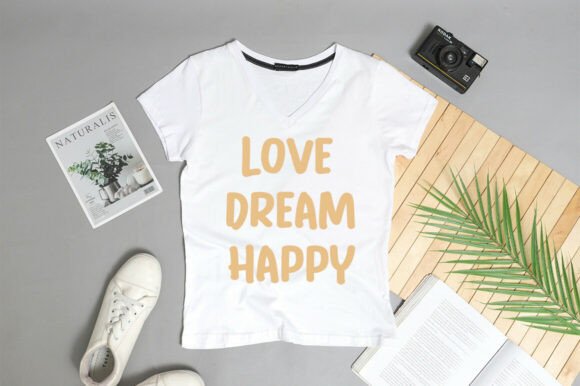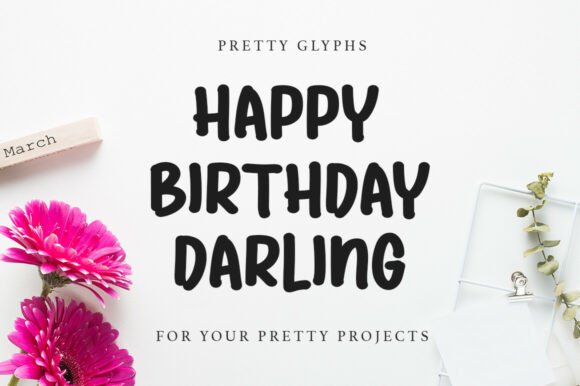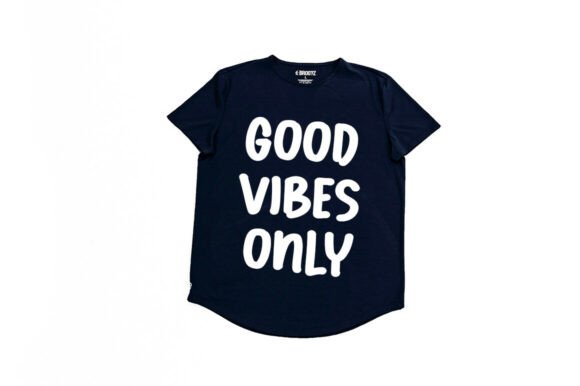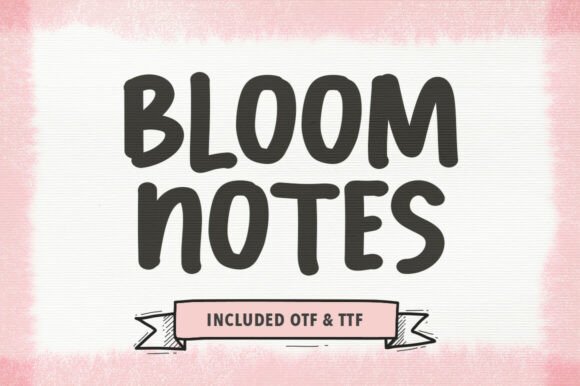
Bloom Notes Font: The Perfect Choice for Spring-Inspired Designs
Are you looking for a font that embodies the spirit of spring and adds a touch of optimism to your designs? Look no further than the Bloom Notes font. This sturdy and cheerful handwritten typeface is perfect for creating eye-catching seasonal sales banners, garden center marketing materials, and lively social media graphics.
What Makes Bloom Notes Font So Special?
The Bloom Notes font features thick, confident strokes with a soft, hand-drawn texture that brings life and energy to the page. Its bold and cheerful appearance makes it an excellent choice for designs that need to stand out from the crowd. Whether you’re creating a banner for a spring sale or a social media graphic for a gardening blog, the Bloom Notes font is sure to grab attention and leave a lasting impression.
Perfect for Eco-Friendly Brands and Crafters
The Bloom Notes font is particularly well-suited for eco-friendly brands, florists, and creative craft bloggers who want to create a cohesive and welcoming visual identity. When paired with bright floral illustrations, the Bloom Notes typeface creates a charming and inviting aesthetic that’s perfect for brands that want to convey a sense of freshness and sustainability.
Key Features of Bloom Notes Font
- Sturdy and cheerful handwritten typeface: The Bloom Notes font features a bold and optimistic design that’s perfect for spring-inspired designs.
- Thick, confident strokes: The font’s thick strokes give it a confident and energetic appearance that’s sure to grab attention.
- Soft, hand-drawn texture: The font’s soft texture adds a touch of warmth and humanity to your designs.
- Perfect for designs that need to be seen from a distance: The Bloom Notes font is bold and eye-catching, making it perfect for banners, signs, and other designs that need to be visible from afar.
Design Ideas with Bloom Notes Font
The Bloom Notes font is incredibly versatile and can be used in a wide range of design projects. Here are a few ideas to get you started:
- Seasonal sales banners: Use the Bloom Notes font to create eye-catching banners for spring sales and promotions.
- Garden center marketing: The Bloom Notes font is perfect for garden center marketing materials, such as flyers, brochures, and social media graphics.
- Lively social media graphics: Add a touch of springtime cheer to your social media graphics with the Bloom Notes font.
- Eco-friendly brand identities: Pair the Bloom Notes font with bright floral illustrations to create a cohesive and welcoming visual identity for eco-friendly brands.
Tips for Using Bloom Notes Font
Here are a few tips for getting the most out of the Bloom Notes font:
- Use it with bright and bold colors: The Bloom Notes font looks best when paired with bright and bold colors that match the spirit of spring.
- Pair it with floral illustrations: The Bloom Notes font pairs perfectly with floral illustrations, making it a great choice for eco-friendly brands and crafters.
- Experiment with different sizes and styles: The Bloom Notes font is versatile and can be used in a wide range of sizes and styles. Experiment with different variations to find the one that works best for your design.
The Bloom Notes font is a sturdy and cheerful handwritten typeface that’s perfect for spring-inspired designs. Its bold and optimistic appearance makes it an excellent choice for designs that need to stand out from the crowd. Whether you’re creating a banner for a spring sale or a social media graphic for a gardening blog, the Bloom Notes font is sure to grab attention and leave a lasting impression. So why not give it a try and see how it can add a touch of springtime cheer to your designs?